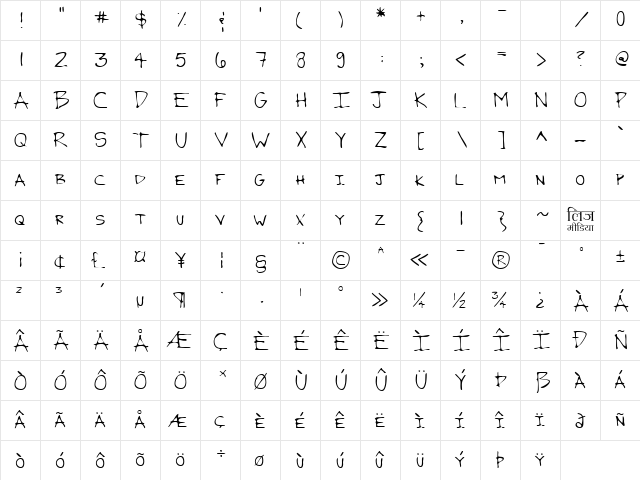
LEHN120 Regular Font Preview
LEHN120 Regular
Design Context for LEHN120 Typeface
LEHN120 is a composed and adaptable typeface that performs quietly and consistently across a wide range of design contexts.